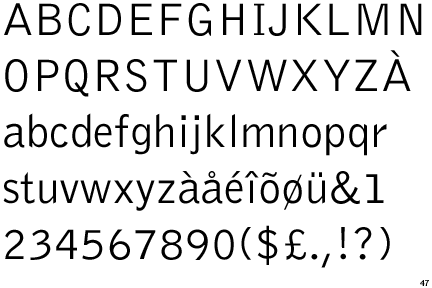
Font Bureau takes credit for Palm's custom 'Prelude' fonts; our hearts melt
Normally we're just happy to be able to read a bit of legible text on a mobile device -- maybe with a bit of anti-aliasing tossed in -- but we really have to hand it to Palm for the truly stunning and readable set of fonts in webOS. Apparently we have Boston-based Font Bureau to thank, who developed the all-new "Prelude" sans serif font family for the device, along with a related "Apres" set for print and marketing. The project was lead by Font Bureau co-founder David Berlow, who has also developed fonts for Microsoft and Apple in the past.
the uppercase I and the lowercase l still look the same.
Why the hell do people do this with sans-serif fonts?
Sans-Serifs means without Serifs. Serifs are the features added to a font like the crossing part of the "I" in a Serif font. That's why you lowercase "L's" and uppercase "i's" should be similar.
While I agree with you about serifs, upper case "i" doesn't have to look like lower case "L". You don't take the top off a capital "T" when you remove the serifs, so you can have a top and a bottom line on an I. It doesn't even have to be that big, and really helps distinguish the letters. It does, however, make the font look less "clean".
Straight to the point: there has to be a way to make the "I" and "l" distinguishable, and it's annoying when you can't tell the difference.
Yes, it's weird, but more readable.
What ever happened to context clues?
What words require you to be able to distinguish whether the character is L or I? In fact, most people do not read all of the letters because we are so accustomed to the sequence of letters making up words that we skip many based on context... we also do not read every word and often fill in sentence structure removing words like that, is, the, etc.
Welcome, Hello, LOL, Melt, Piece, Watermellon, and so many other words are all easily distinguishable... The only one I can think of off hand is Heil... Veil, Geil, where it might be helpful to differentiate between heil and HELL.
You mean Names? HEILBRONER?
By the way, the font is not all that easy to distinguish between the various styles (Bold / Italic / Condensed)... they look too similar to each other.
With capitalization rules there's no reason why you'd need to be able to distinguish between them visually since the context will rule out one or the other. Like "I love you", it's clearly an L after the capital I even though they look the same, and you know the first word is an "i" because you capitalize the first letter of a sentence and there's no words made up of a single "L".
Unless for some bizarre reason you want to write i's and L's over and over in alternating upper and lower case (for i and L respectively) you can easily tell the two apart.
I understand your argument completely, for example the word "Illustrate" if used at the beginning of a sentence can cause the exact problem you "Illuded" above.
There really isn't a way to solve this problem at the moment with most typography unless the font is designed to deal with this issue specifically.
Context clues might be able to help you figure out the difference between I and l when reading but I can't figure out why Omnipage OCRuses sans serif fonts. When proofreading to see if it accurately converted the pdf to text it makes it very difficult.
Although I agree the I and l should look different, they tried it with Bell Gothic and I HATE the capital "i".
http://www.identifont.com/samples/adobe/BellGothic.gif
A good example of a lowercase L in a san-serif form is in the typeface Bliss (http://www.typography.net/type/bliss). Note the subtle serif-like curve at the end similar to most lowercase T's. One of my latest faves. Some reason for simplifying areas like this are directly related to screen-reading and DPI. I'm sure it was mulled over during the design process, but ultimately most people are accustomed to this not being an issue (such as in Arial and Helvetica).
On that note, I have a lot of respect for Font Bureau. Even had the opportunity to hear from them back in college at a speaking engagement. I think it's great to see a font house get commissioned for such work. As a designer, I'm well aware of how often typeface designers' work gets circulated like downloaded music (without a great way to stop it or offset it with physical copies).
To those that claim you can tell a sans serif I and l apart: In which order do they appear in my sentence?
Also, context cannot be used in situations like PASSWORDS.
Can I download these for my PC?
I'm curious too.
so they tweaked Helvetica a bit and they're claiming a new font ?? PFFFFFFFF
More futura based. Get your fonts right!
So, by "design" they mean "copy Futura and change the lowercase a". Nice.
I copied and pasted that from an iPhone. And it even corrected the capital "P" in the word iPhone for me, look it did it again!
But I think that the main focus is the simple beauty and elegance that this readable font has, rather than it just being readable.